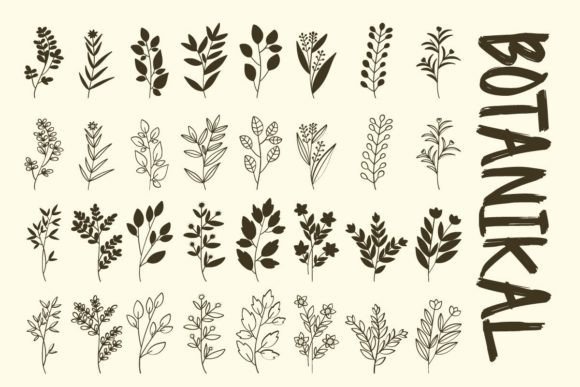
The Blooming Beauty of Botanikal Font
I’ll never forget the time I was working on a wedding invitation project, and my client asked for a font that was both elegant and playful. I scoured the internet, tried out countless fonts, but nothing seemed quite right. That was until I stumbled upon Botanikal Font – a lovely botanical-themed dingbats font that added a modern touch to my design. In this article, I’ll share my experience with Botanikal Font, its features, and how to make the most of it in your design projects.
An Honest Review of Botanikal Font
• ✨ Delicate floral elements that add a touch of whimsy to any design
• ✅ Easy to use and pairs well with a variety of fonts
• 🌼 Versatile and suitable for a range of design projects, from wedding invitations to business cards
• 💐 Beautifully crafted glyphs and stylistic alternates
While Botanikal Font is a stunning addition to any design project, there are a few things to keep in mind:
• 🤔 Some glyphs may require manual kerning for optimal results
• ⚠️ Limited character set compared to other fonts, but still offers a wide range of design possibilities
The Designer Inspiration Behind Botanikal Font
Botanikal Font was designed by a talented typographer who drew inspiration from the beauty of nature. With a passion for botany and design, the designer created a font that combines the elegance of traditional typography with the playfulness of botanical illustrations. The result is a unique and versatile font that’s perfect for a range of design projects.
Q: What type of designs is Botanikal Font best suited for?
A: Botanikal Font is perfect for wedding invitations, business cards, product designs, and greetings cards. Its delicate floral elements add a touch of whimsy to any design.
Q: Is Botanikal Font easy to use?
A: Yes, Botanikal Font is easy to use and pairs well with a variety of fonts. Its OpenType features and glyphs make it easy to add visual interest to your design.